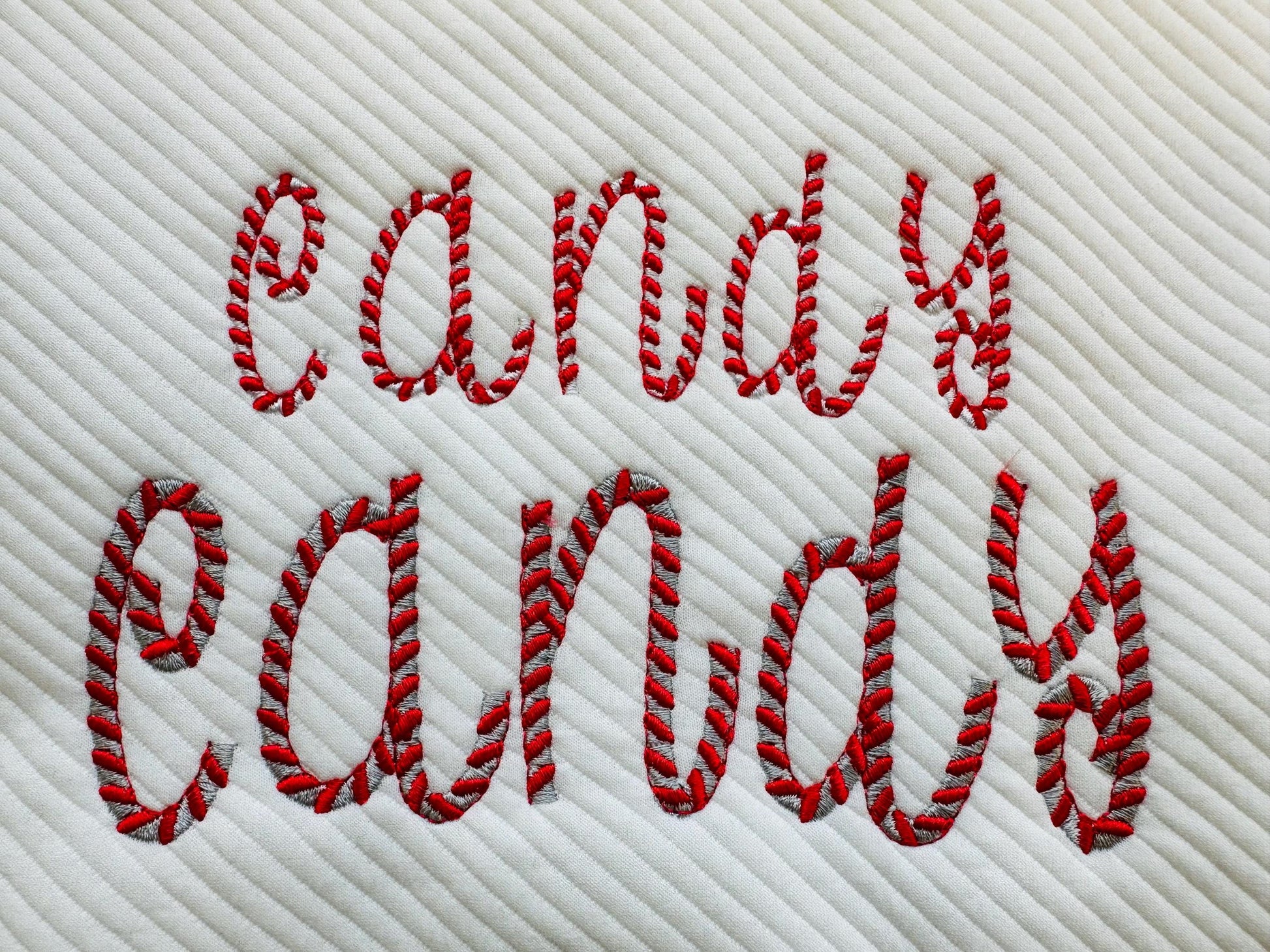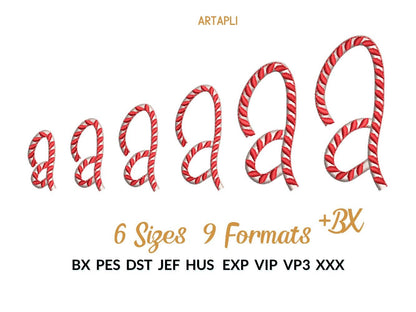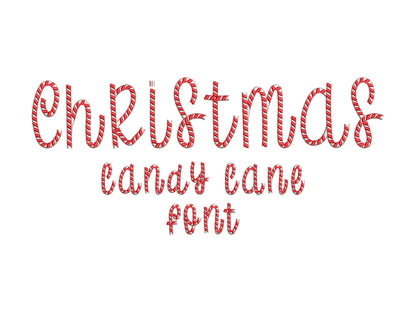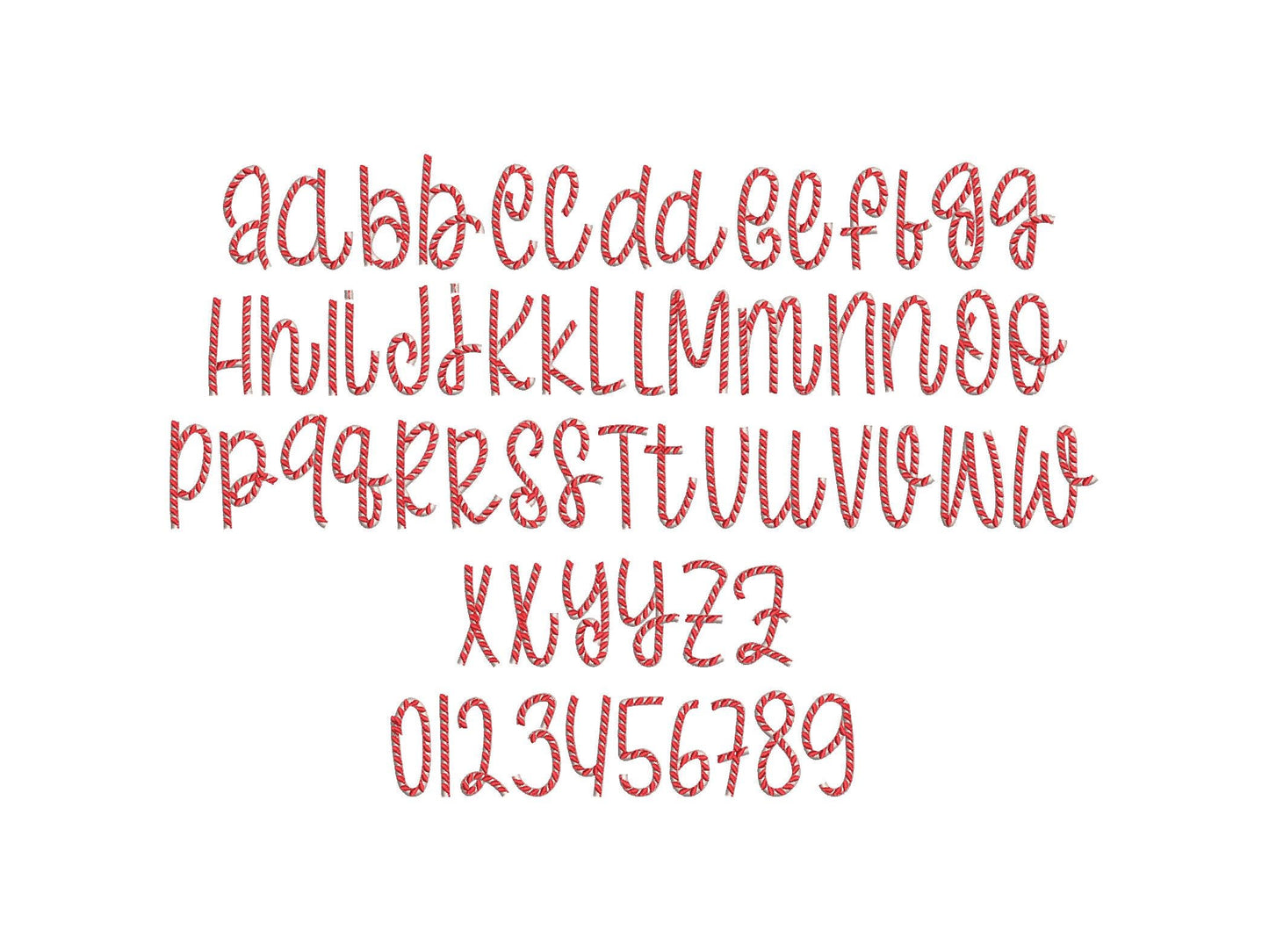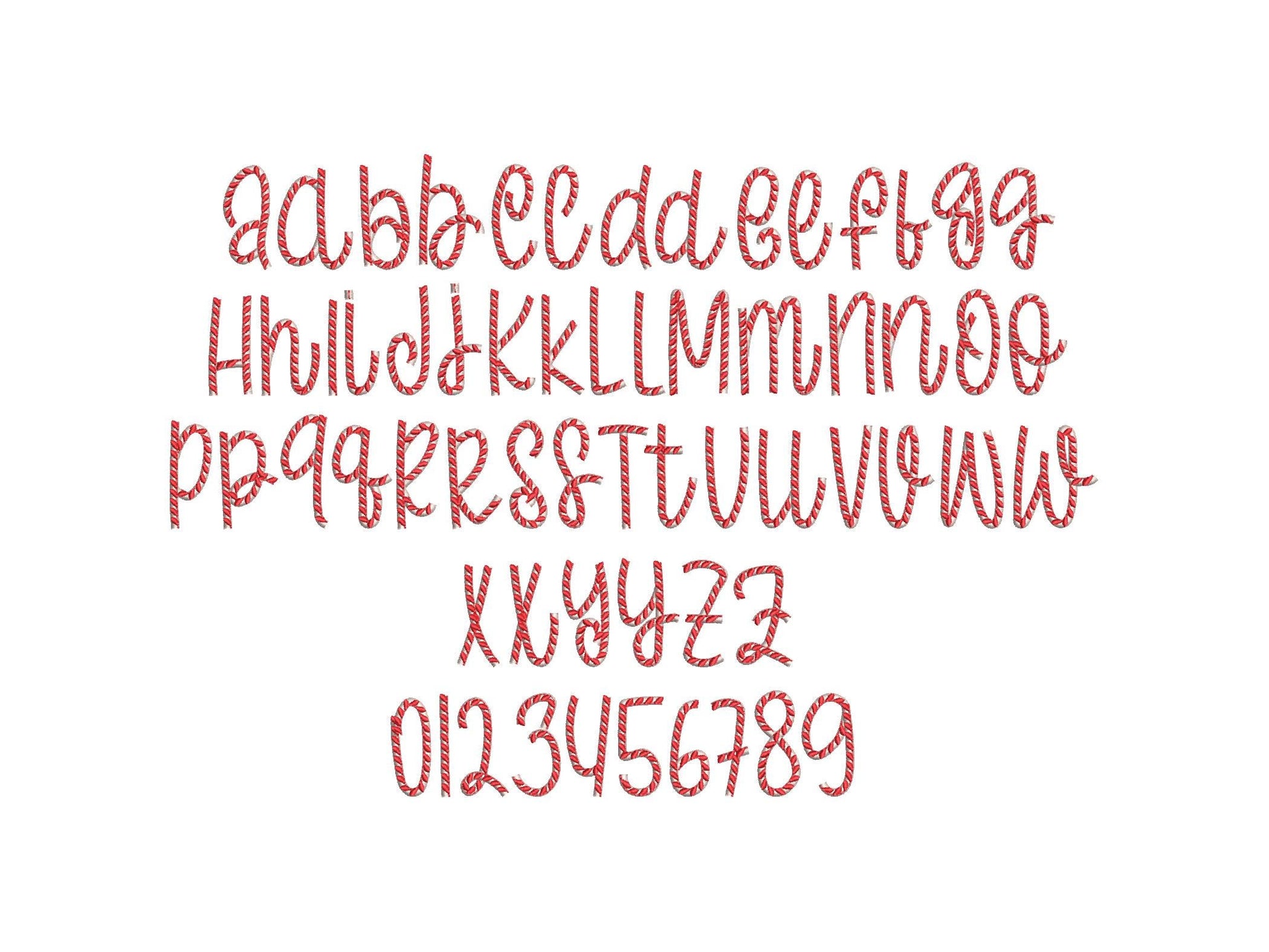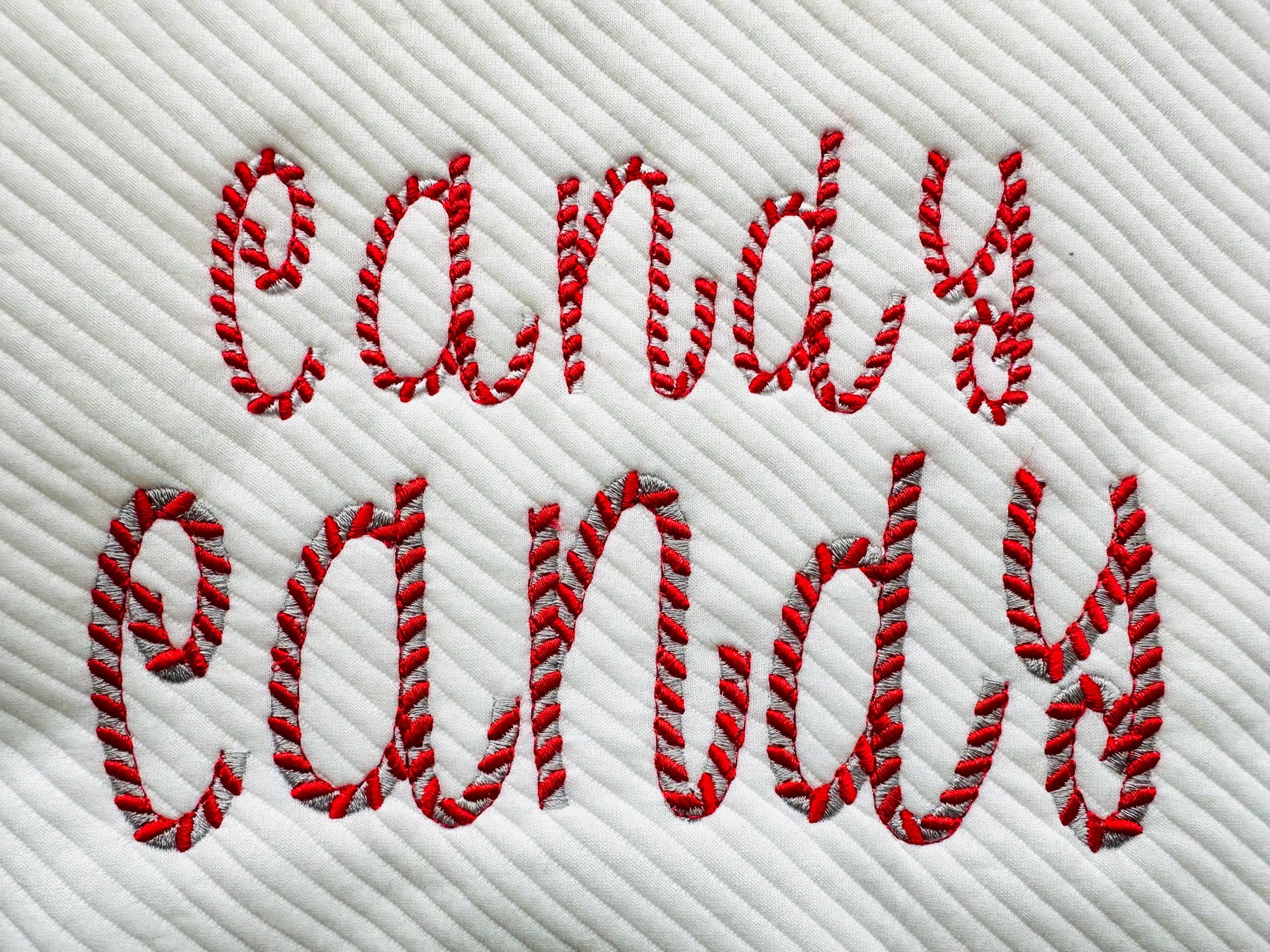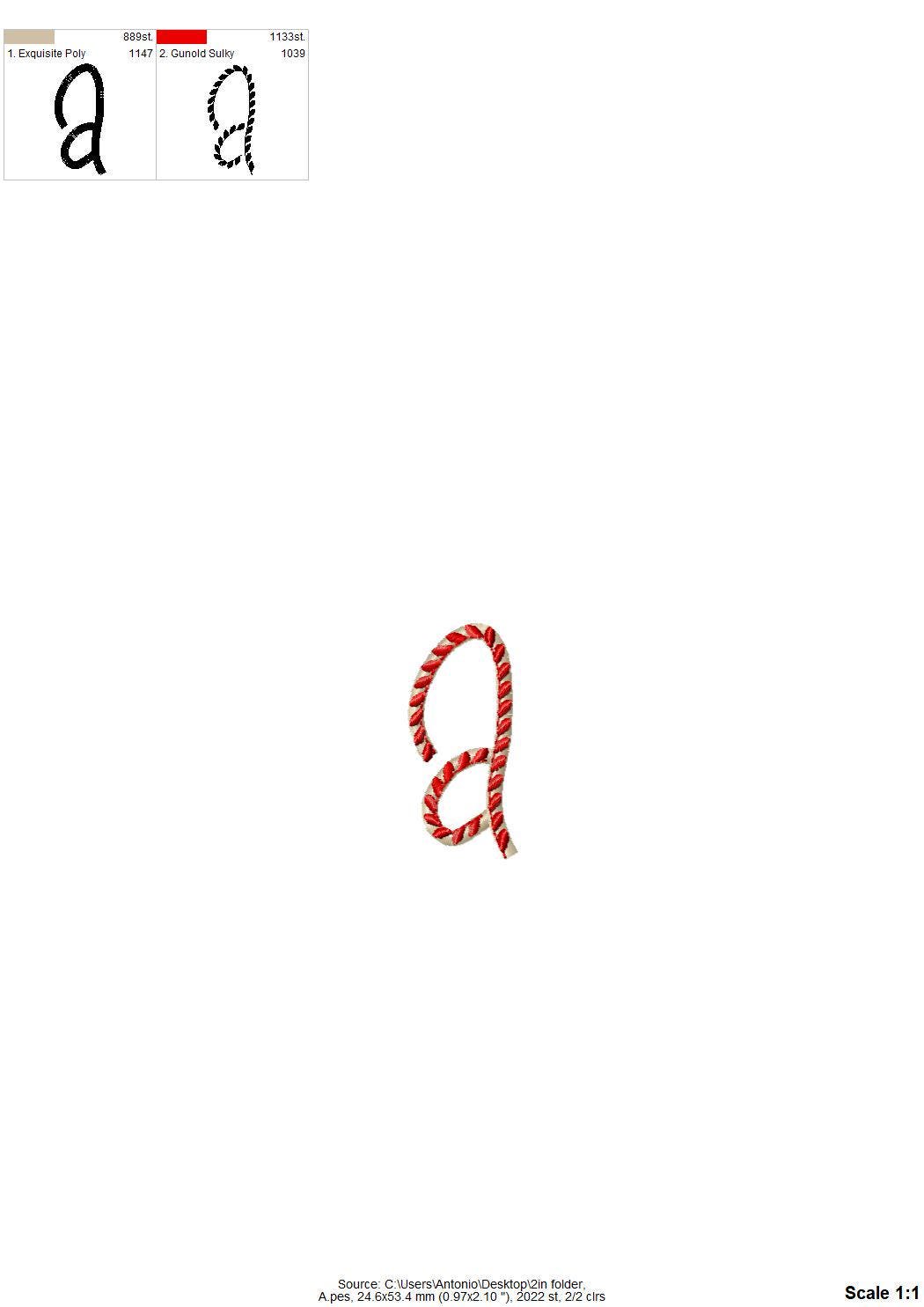
Christmas Candy Cane Font
Or click to open the linkA two-color candy cane font for Christmas stockings, holiday shirts, ornaments and names.
Uppercase and lowercase letters, all the same height, and numbers 0 to 9 in six sizes: 1.2, 1.4, 1.7, 2, 2.6 and 3 inches. Candy cane stripes in two thread colors fill every letter.
- Two-color candy cane font
- Uppercase and lowercase letters, numbers 0-9
- 6 sizes, 1.2 to 3 in